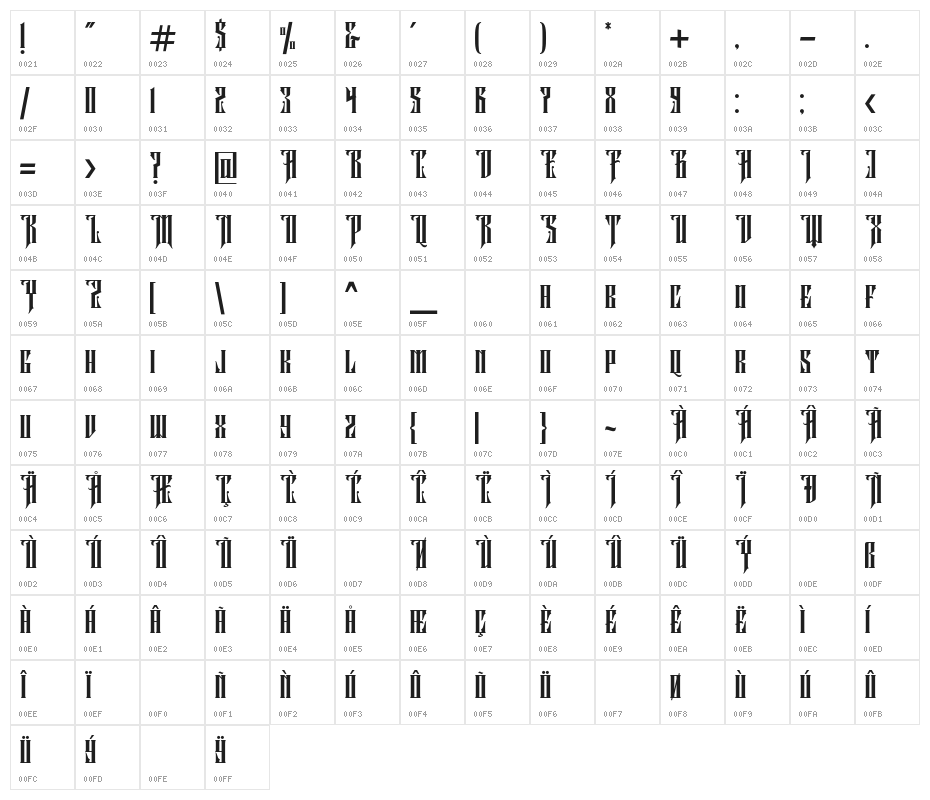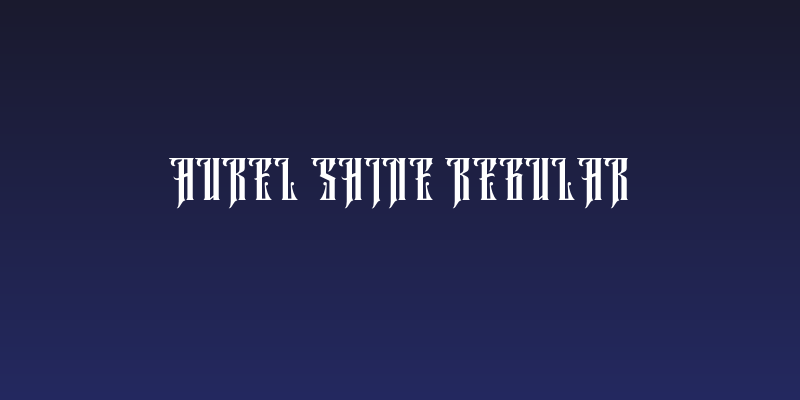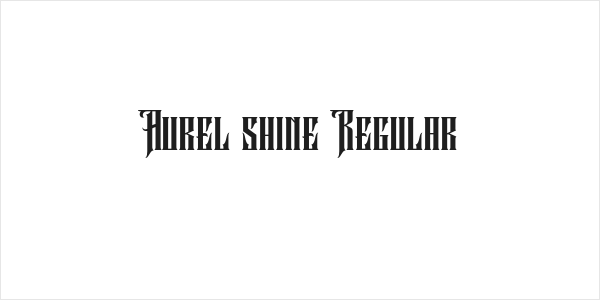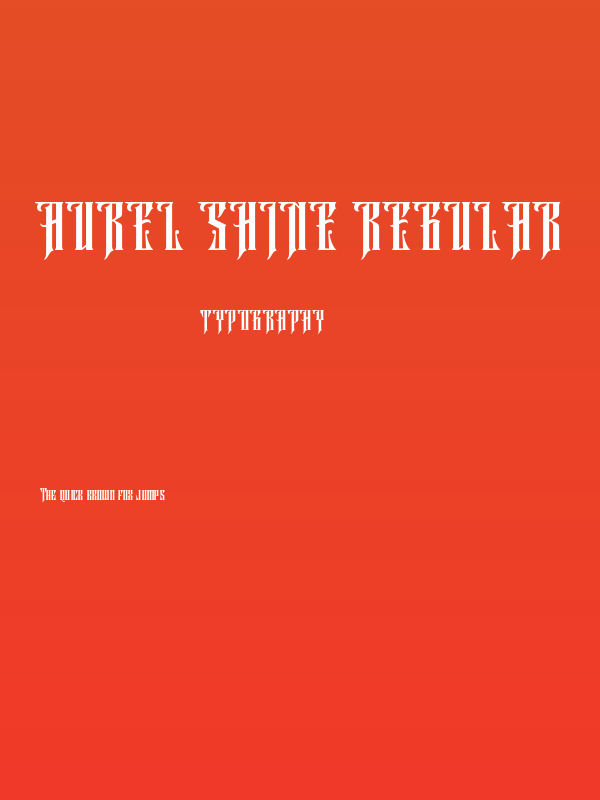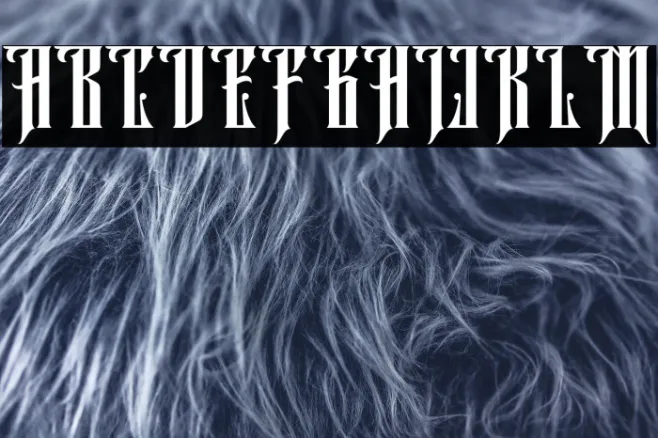
Aurel shine Regular Font
Aurel shine Regular Description
This font features a bold and striking design with sharp, angular lines and a distinct Gothic influence. The characters are tall and narrow, with pointed serifs and intricate detailing that give it a dramatic and ornate appearance. The uppercase letters are particularly elaborate, while the lowercase letters maintain a consistent style with slightly less embellishment. The numerals and special characters follow the same aesthetic, ensuring a cohesive look across all text. This font is ideal for creating a strong visual impact and is well-suited for projects that require a touch of elegance and historical flair.
| Proposed Projects | Ideal for branding, posters, album covers, and any design needing a dramatic, historical touch. |